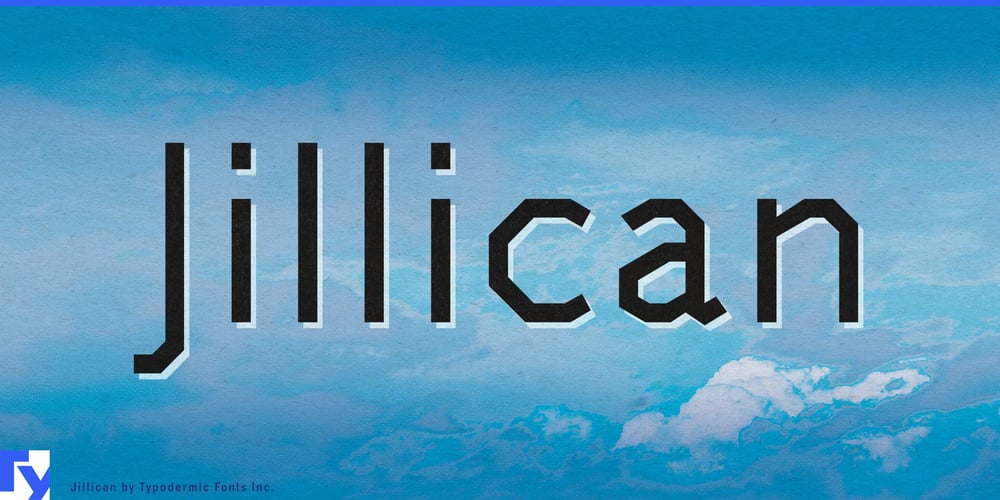
Jillican Font Family was designed by Ray Larabie and published by Typodermic. Jillican contains 15 styles and family package options. Jillican emerges as a refined homage to classic British typography, channeling the timeless elegance of mid-20th century sans-serif design while infusing it with contemporary precision. This typeface strikes a masterful balance between heritage and modernity, offering designers a versatile tool that speaks with quiet authority and understated sophistication.At its core, Jillican embodies the principle of functional beauty. Its clean lines and carefully considered geometries echo the no-nonsense practicality of its spiritual predecessors, yet it stands firmly in the present with its computer plotter-drawn aesthetic. The typeface’s angles are judiciously applied, resulting in letterforms that are at once efficient and graceful—a testament to the enduring power of thoughtful design. The Jillican family offers a robust range of expression with its six weights and accompanying italics. This versatility allows it to adapt seamlessly from body text to headlines, from wayfinding systems to corporate identities. For projects demanding additional visual impact, Jillican extends its reach with distinctive variations. Jillican War commands attention with its bold stencil design, while Jillican Warpaint introduces an element of artistry through its dripping paint effect. Jillican War 3D adds depth and dimensionality, elevating the stencil concept to new heights.True to its British design heritage, Jillican carries itself with an air of quiet confidence. It doesn’t shout for attention but rather draws the eye through its impeccable proportions and subtle character. This quality makes it particularly well-suited for projects that require a blend of tradition and innovation—from reimagining established brands to creating identities for forward-thinking institutions. Jillican’s linguistic versatility is equally impressive, supporting a wide array of Latin-based European writing systems. This extensive language coverage ensures that the typeface’s distinctive voice remains consistent across borders, from the bustling streets of London to the cafés of Paris and beyond. In an era of global communication, Jillican stands ready to articulate your message with clarity and style, regardless of the linguistic landscape.Embrace Jillican, and discover how its unique fusion of British typographic tradition and modern precision can elevate your design work. It’s more than just a typeface—it’s a bridge between the revered past and the dynamic present, offering designers a tool that speaks volumes in every carefully crafted line.